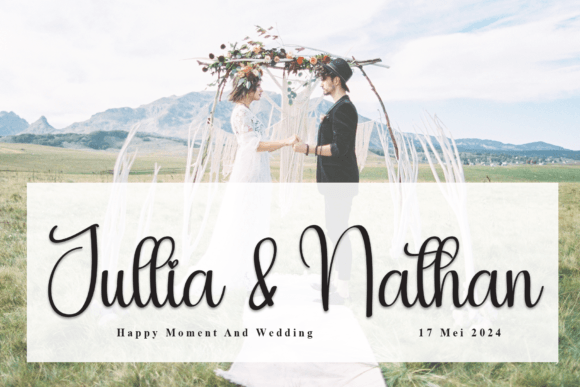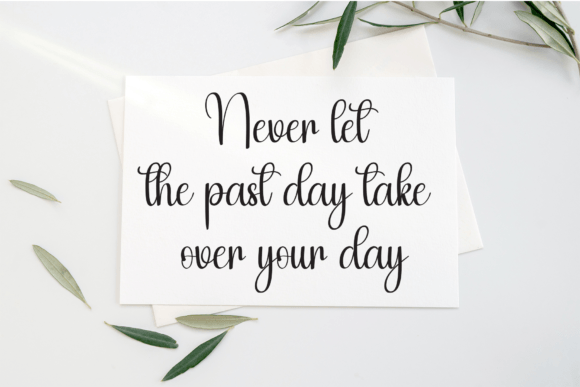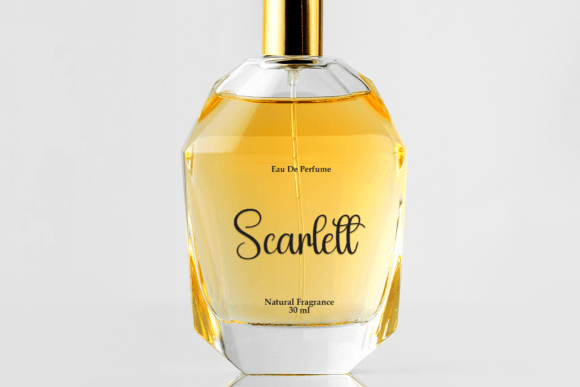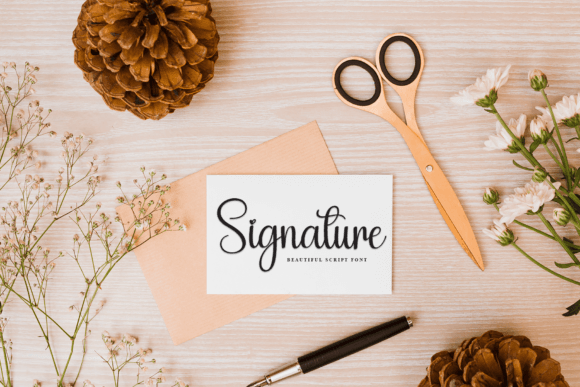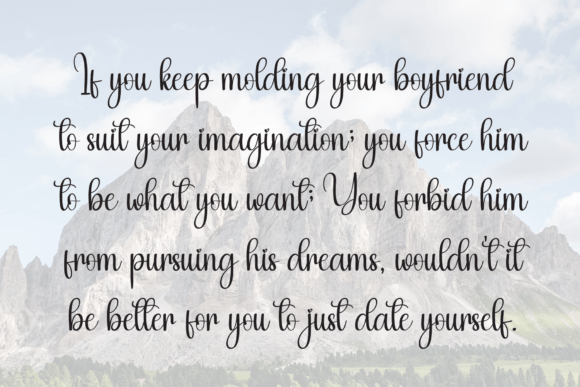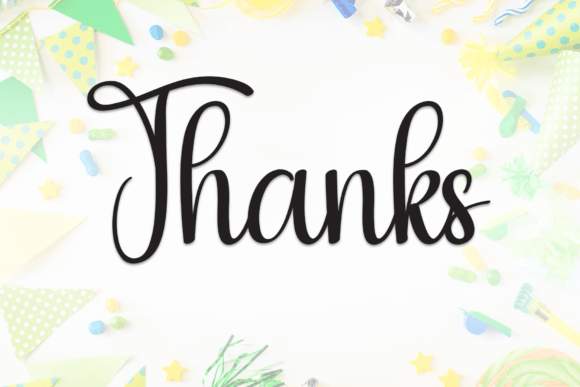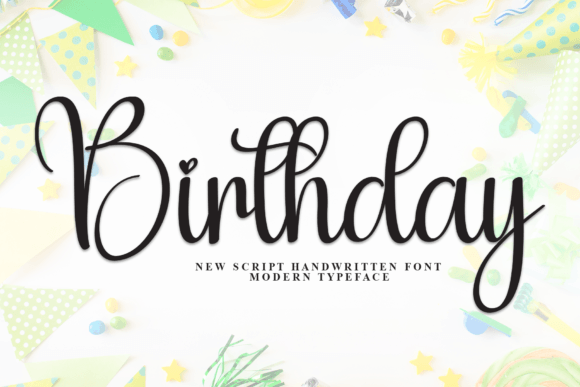
Introducing Birthday Font: Elevate Your Designs with Elegance and Sophistication
Are you a designer or crafter looking for the perfect font to add a touch of elegance and sophistication to your creations? Look no further than Birthday Font, a stunning script font that is sure to take your designs to the next level. In this article, we’ll dive into the world of Birthday Font, exploring its features, uses, and benefits, and providing you with inspiration and ideas for incorporating it into your work.
What is Birthday Font?
Birthday Font is a stylish and incredibly elegant script font that is perfect for adding a handwritten touch to your designs. With its flowing lines and beautiful letterforms, this font is sure to make a statement in any project. Whether you’re working on wedding invitations, thank you cards, quotes, greeting cards, logos, business cards, or any other design that needs a personal touch, Birthday Font is the perfect choice.
So, what makes Birthday Font so special? Here are just a few of its key features:
• Elegant Script Style: Birthday Font features a beautiful script style that is both elegant and sophisticated.
• Handwritten Touch: With its flowing lines and natural letterforms, Birthday Font adds a personal touch to any design.
• Versatile: This font is perfect for a wide range of design projects, from wedding invitations to business cards.
• Easy to Read: Despite its elegant style, Birthday Font is easy to read, making it perfect for both print and digital designs.
Uses for Birthday Font
So, how can you use Birthday Font in your designs? Here are just a few ideas to get you started:
• Wedding Invitations: Add a touch of elegance and sophistication to your wedding invitations with Birthday Font.
• Thank You Cards: Make your thank you cards stand out with this beautiful script font.
• Quotes: Use Birthday Font to add a personal touch to your quotes and make them more impactful.
• Greeting Cards: From birthday cards to holiday cards, Birthday Font is perfect for any occasion.
• Logos: Add a touch of elegance and sophistication to your logo with Birthday Font.
• Business Cards: Make your business cards stand out with this beautiful script font.
Benefits of Using Birthday Font
So, why should you choose Birthday Font for your designs? Here are just a few benefits:
• Unique and Eye-Catching: Birthday Font is a unique and eye-catching font that is sure to make your designs stand out.
• Elegant and Sophisticated: This font adds a touch of elegance and sophistication to any design.
• Versatile: Birthday Font is perfect for a wide range of design projects.
• Easy to Use: This font is easy to use and can be incorporated into your designs in just a few simple steps.
Tips for Using Birthday Font
Here are a few tips for using Birthday Font in your designs:
• Use it Sparingly: While Birthday Font is beautiful, it can be overwhelming if used too much. Use it sparingly to add a touch of elegance and sophistication to your designs.
• Pair it with Other Fonts: Birthday Font pairs well with a variety of other fonts. Experiment with different pairings to find the one that works best for your design.
• Experiment with Colors: Birthday Font looks beautiful in a variety of colors. Experiment with different colors to find the one that works best for your design.
In conclusion, Birthday Font is a beautiful and elegant script font that is perfect for adding a handwritten touch to your designs. With its flowing lines and natural letterforms, this font is sure to make a statement in any project. Whether you’re a designer or crafter, Birthday Font is a great choice for anyone looking to add a touch of elegance and sophistication to their creations.